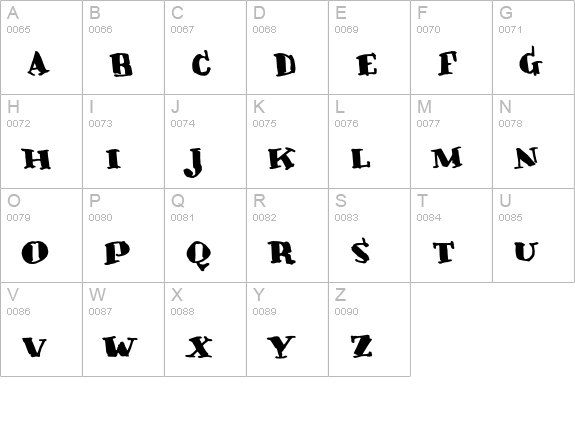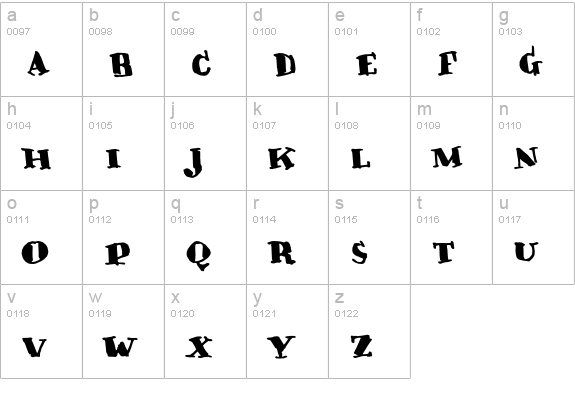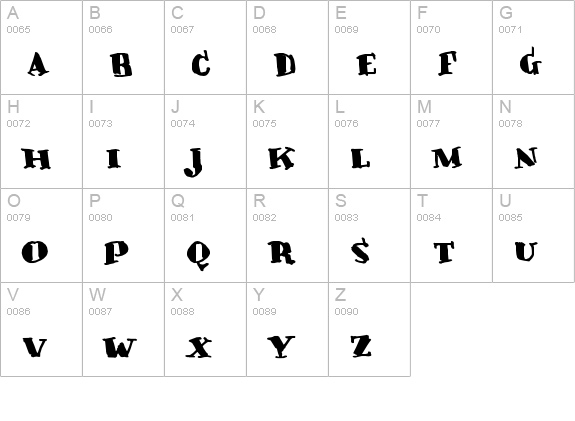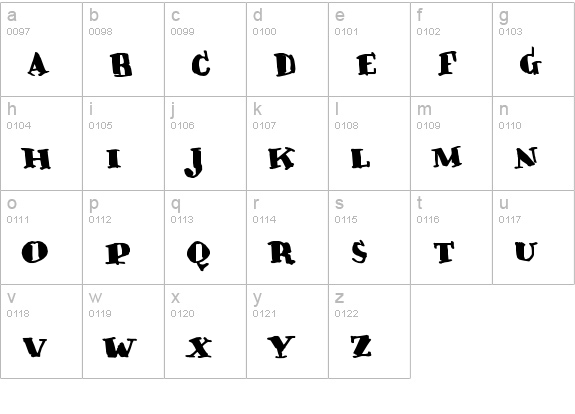
Crunky Font Details
Introducing the captivating and versatile Crunky font, designed to make your projects stand out with its unique charm and personality. This playful and modern typeface is perfect for a wide range of design applications, from branding to packaging, posters, and more. With its bold and eye-catching letterforms, Crunky adds a touch of creativity and energy to any project. What's even better is that Crunky font is available for free download at FontsMarket.com! That's right, you can easily access this fantastic font and start using it in your designs right away. Don't miss out on the opportunity to enhance your creations with the stylish and contemporary Crunky font – download it now and let your creativity shine!